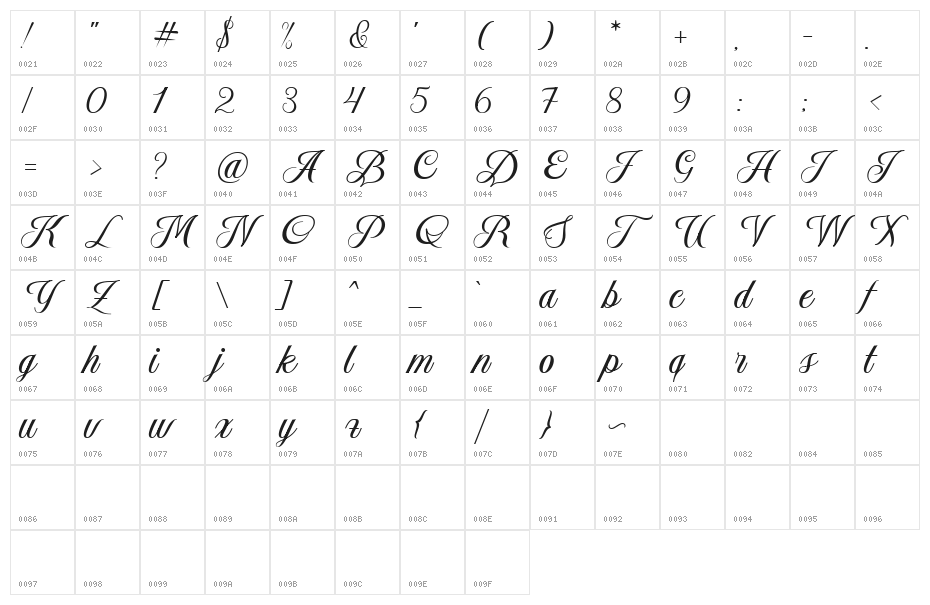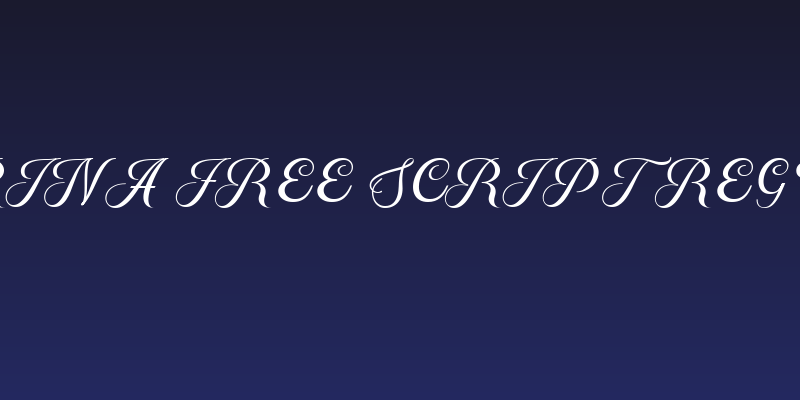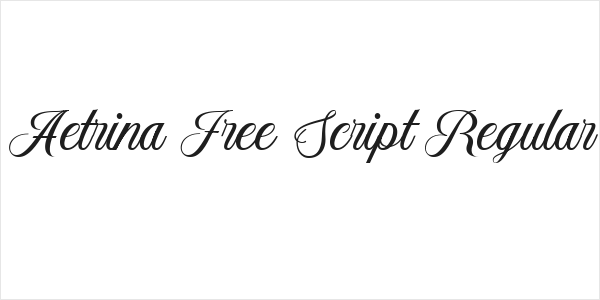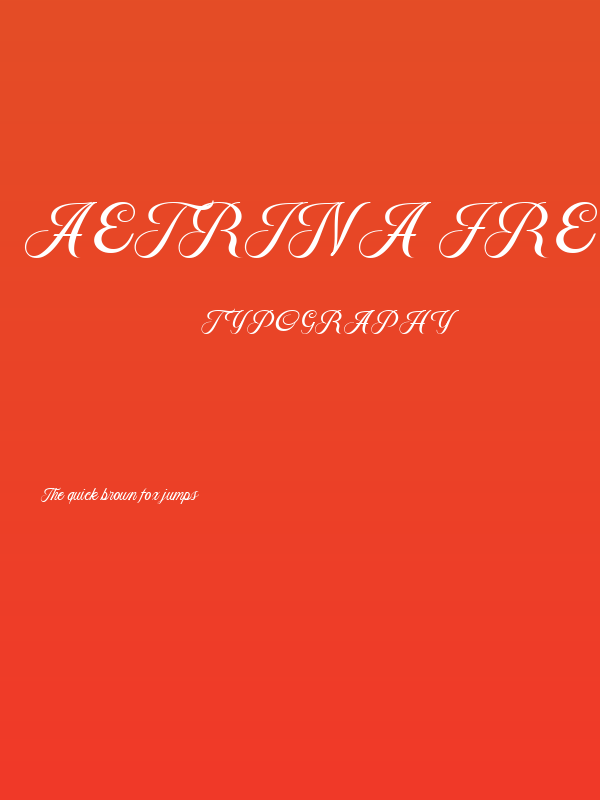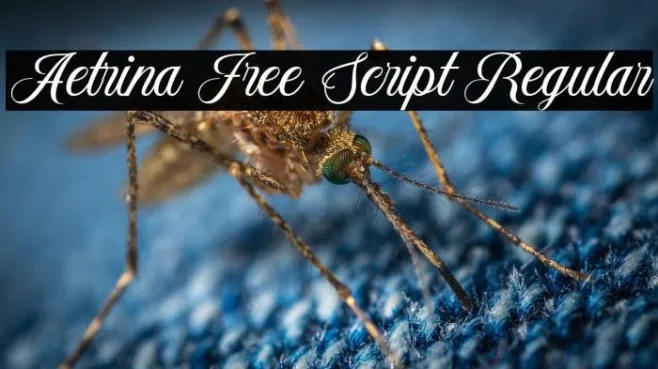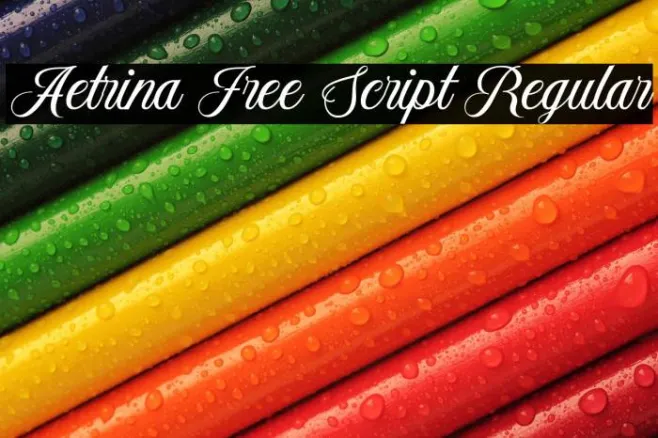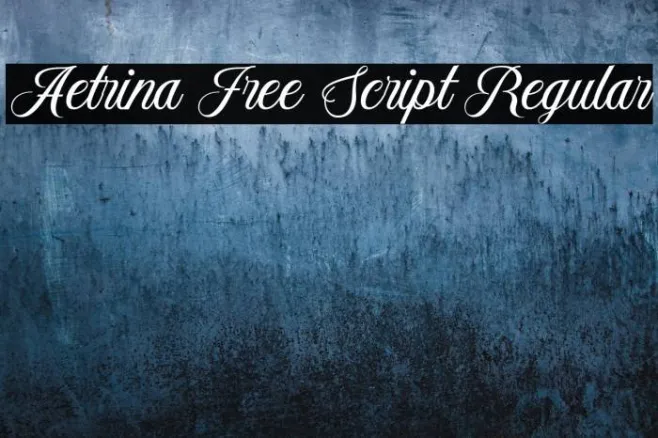
Aetrina Free Script Regular Font
Aetrina Free Script Regular Description
This elegant script font features a flowing, cursive style with a sophisticated flair. The uppercase letters are ornate, with sweeping curves and flourishes that add a touch of elegance. The lowercase letters maintain a smooth, connected appearance, enhancing the script's fluidity. Numbers and special characters are designed with similar attention to detail, ensuring consistency across the font. The overall appearance is both classic and stylish, making it suitable for formal invitations, branding, and decorative purposes.